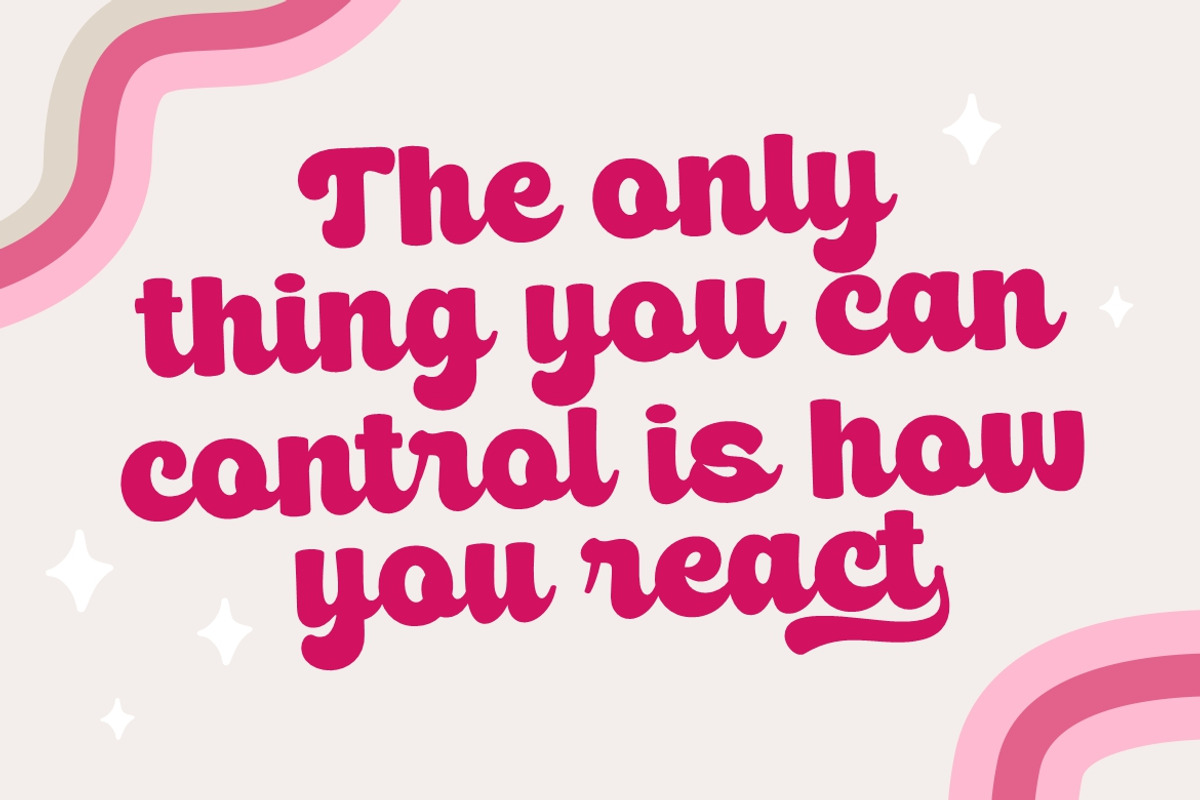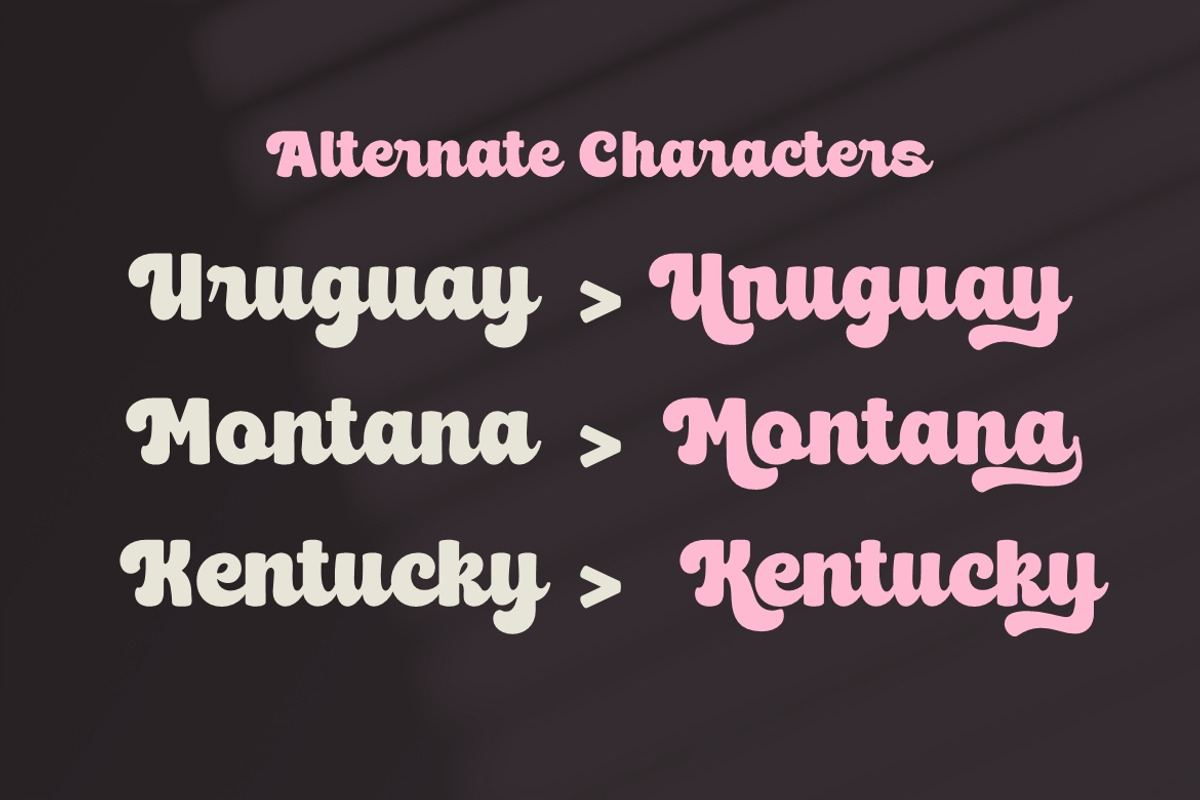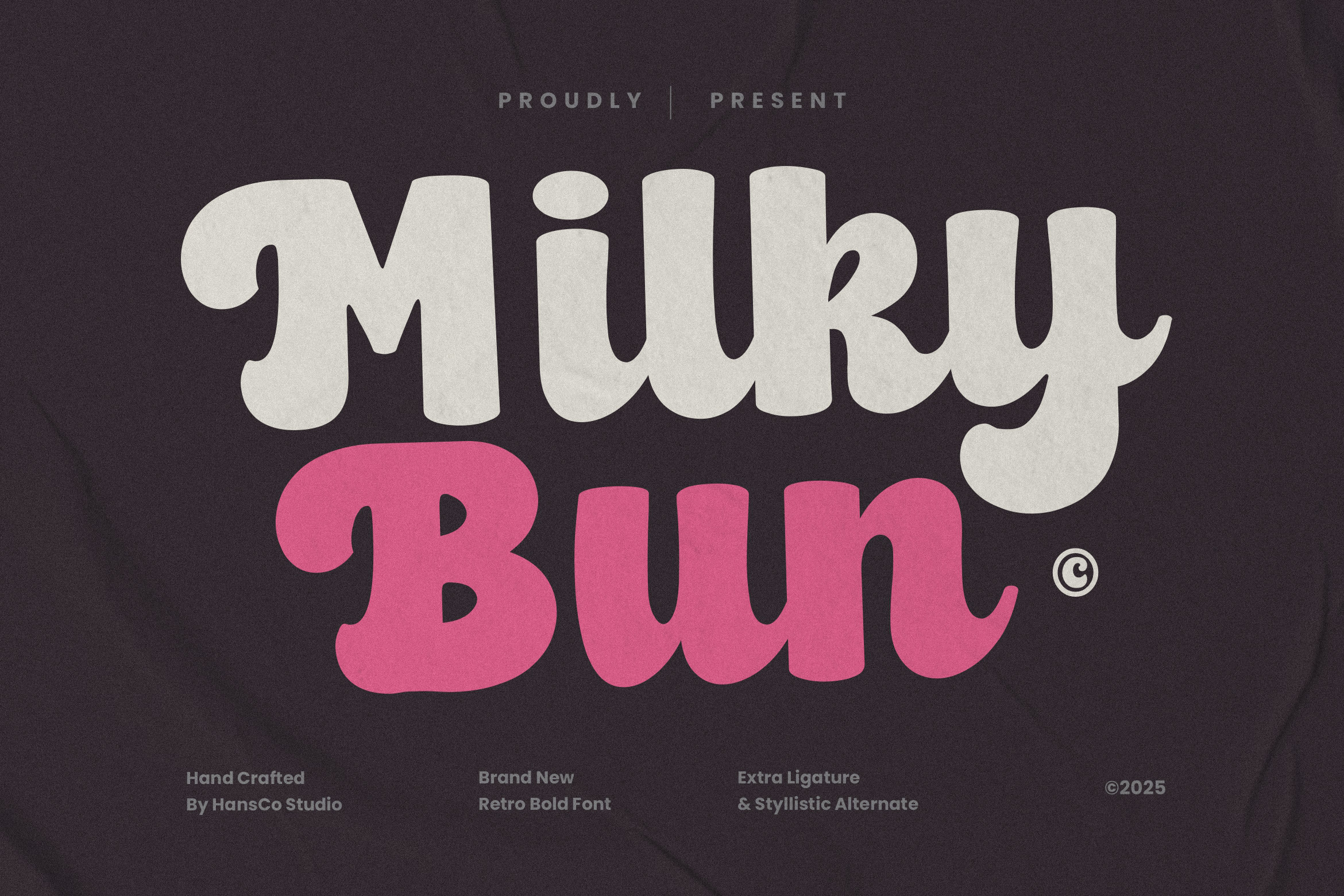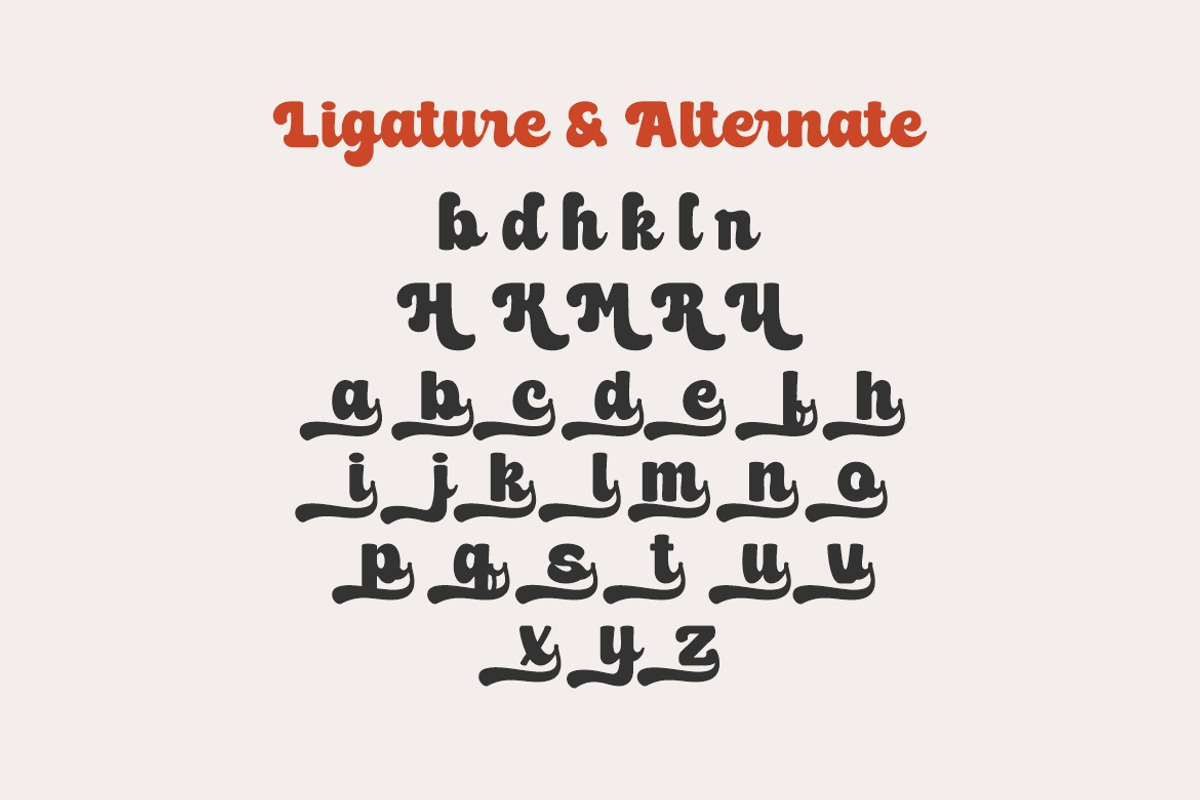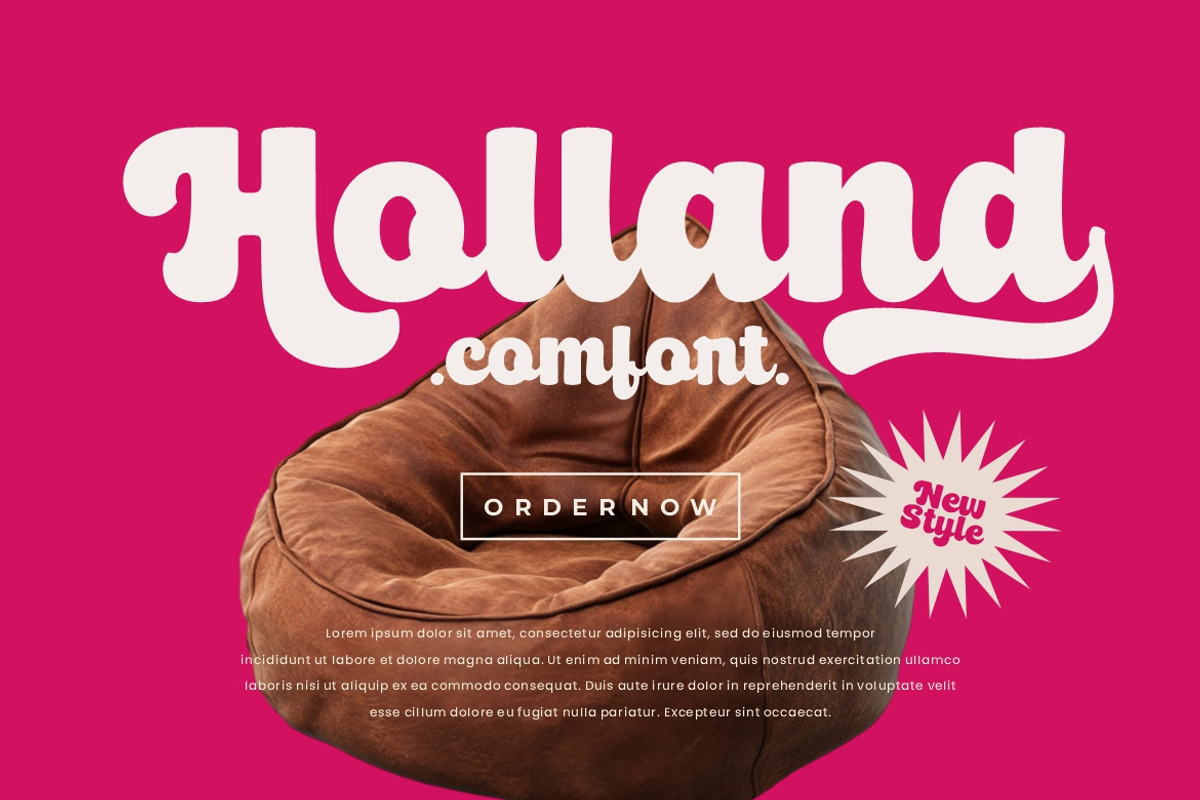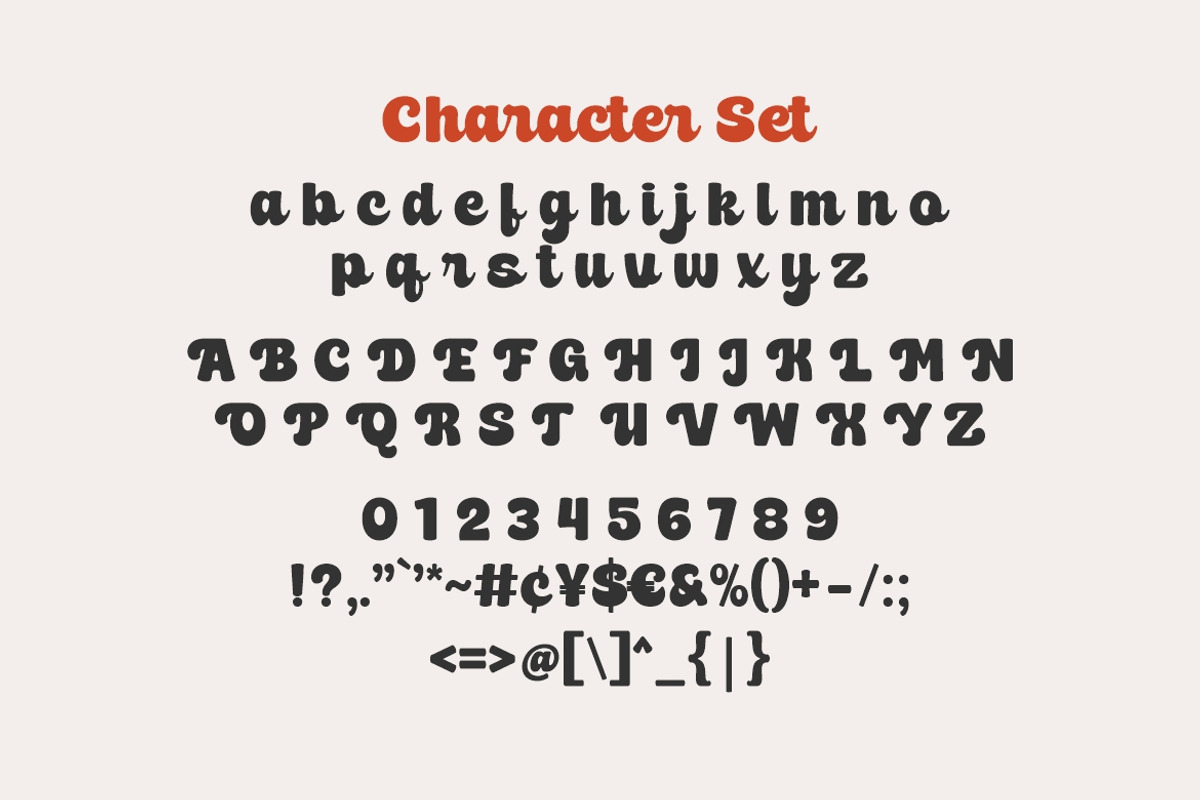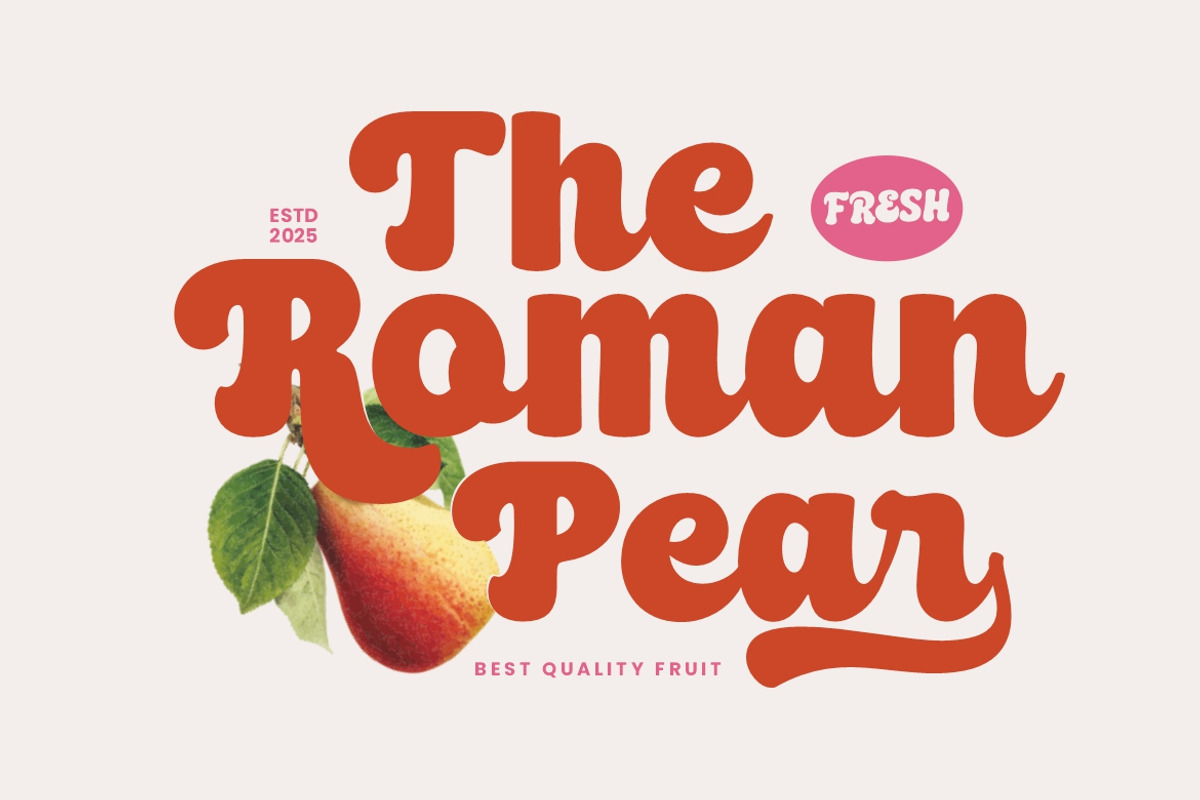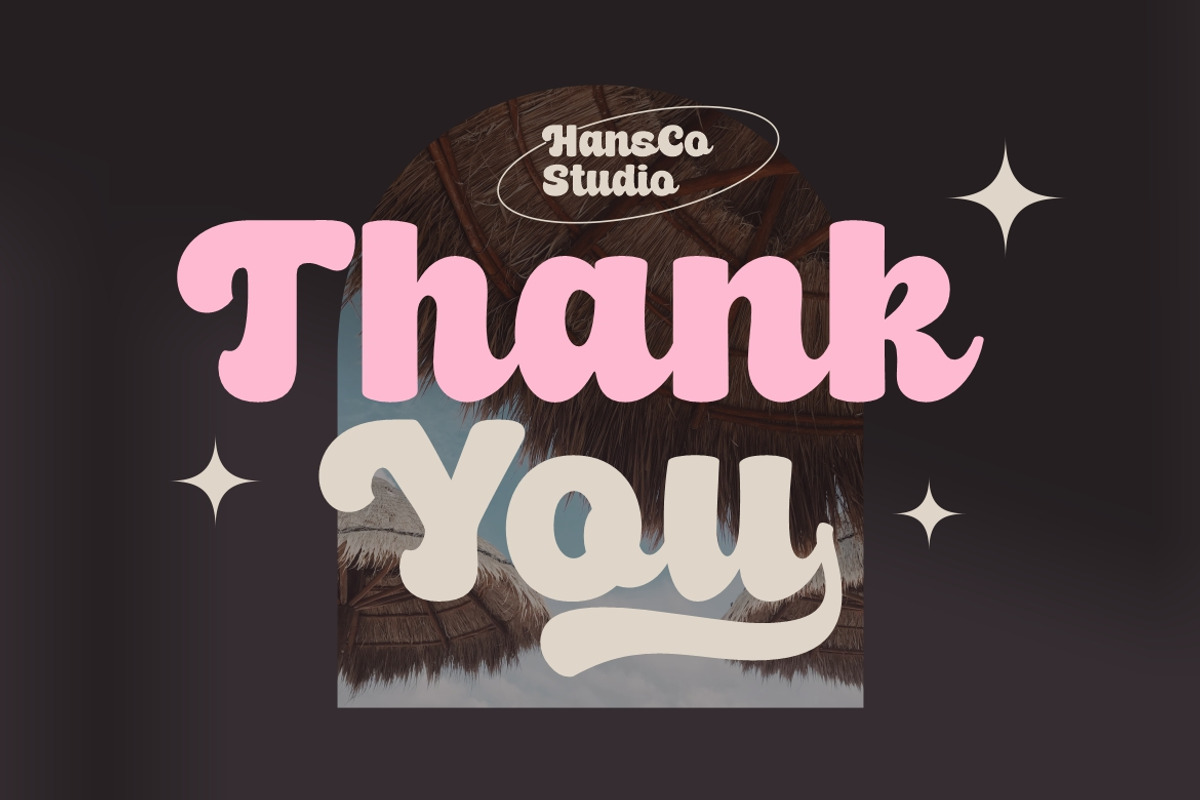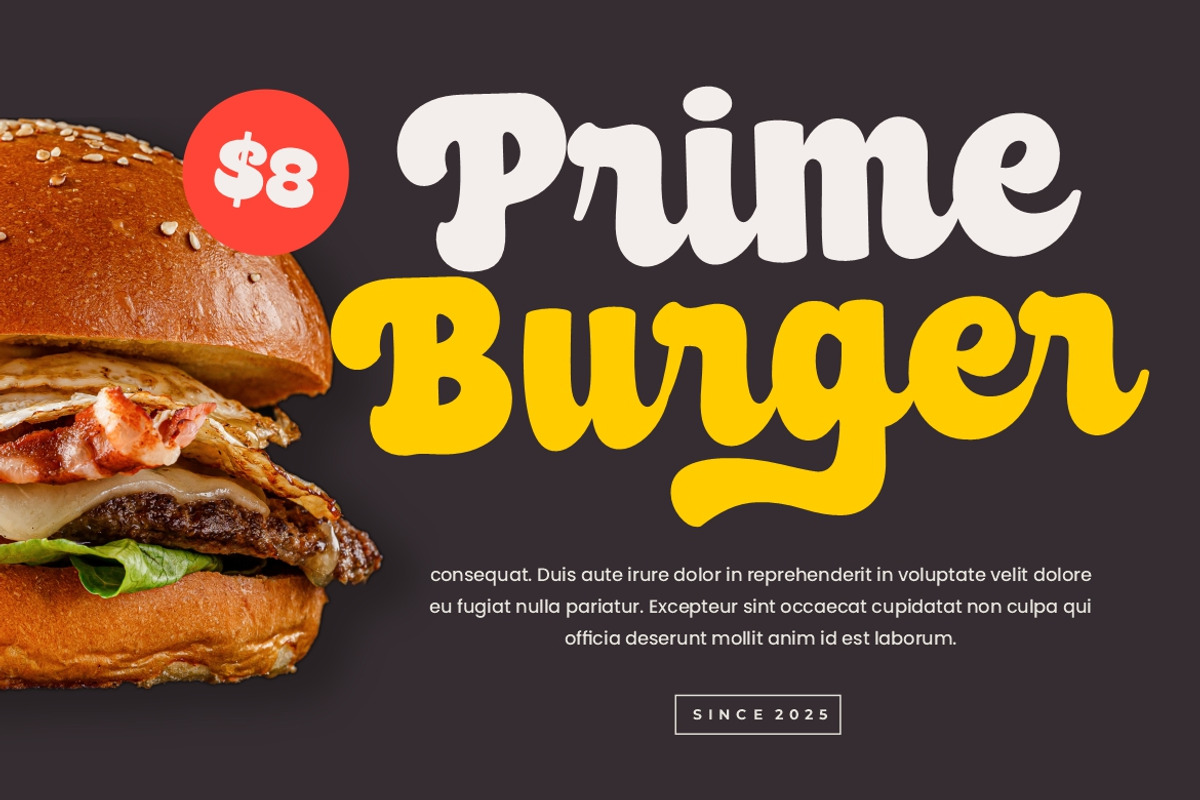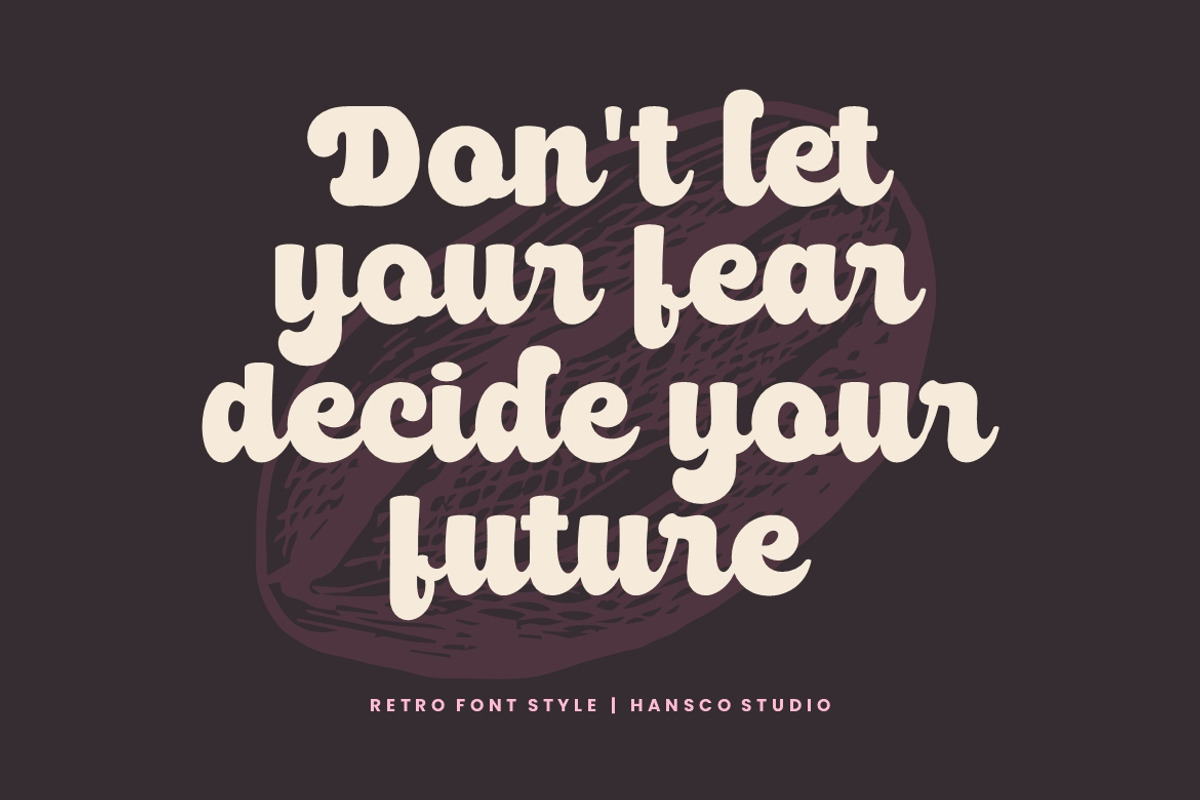
Milky Bun Font
Milky Bun font is a bold retro font style with rounded touch. Equipped with all complete characters ranging from uppercase letters, lowercase letters, numbers, punctuation marks and multi-lingual support, this font is ready to be used in any project. Very suitable for logotype, Stickers, Packaging design, Cricut Project, headlines, brand identity, posters, magazines, books, YouTube, Instagram, websites, Canva, Corjl or any of your creative design projects. Use this Milky Bun font to add that special modern retro touch to any design idea you can think of!
- Alternate Character